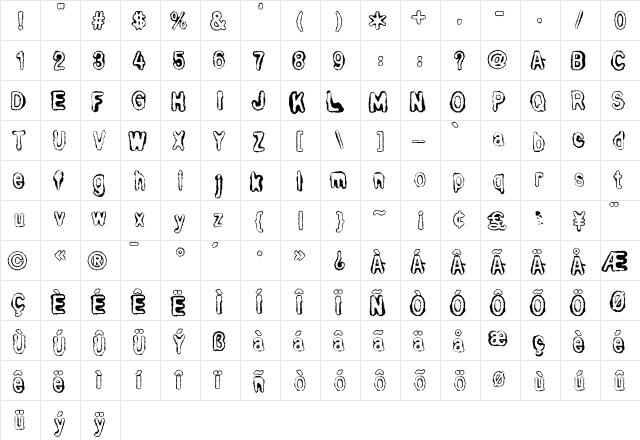
Bull Outline
Design Context for Bull Typeface
Bull is built around its visual character rather than neutral utility — its distinctive forms are designed to make an impression at display sizes.
Font Pairing: Pair with a clean neutral sans-serif for body copy to let Bull's character lead without overwhelming the composition.
Pro Tip: Use Bull exclusively at display sizes — it was designed to be seen, not read at length. Let a neutral companion handle body copy.